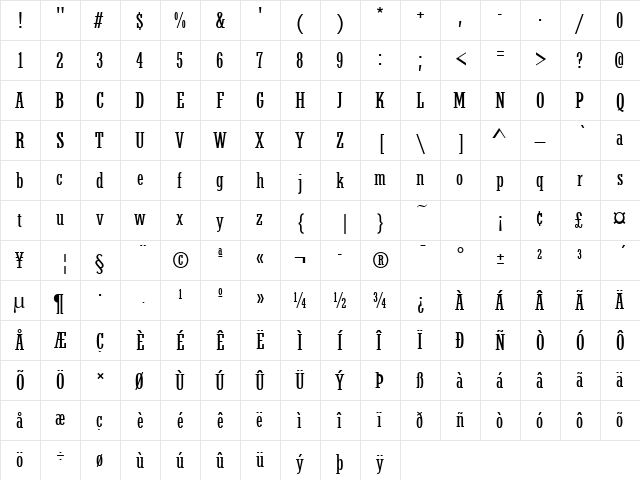
StymieTRegCon Regular
Design Context for StymieTRegCon Typeface
StymieTRegCon offers clean, dependable letterforms without strong stylistic allegiance, making it a practical choice for designers who need flexibility.
Pro Tip: Use StymieTRegCon in both headline and body roles to test its range before committing to a single application.